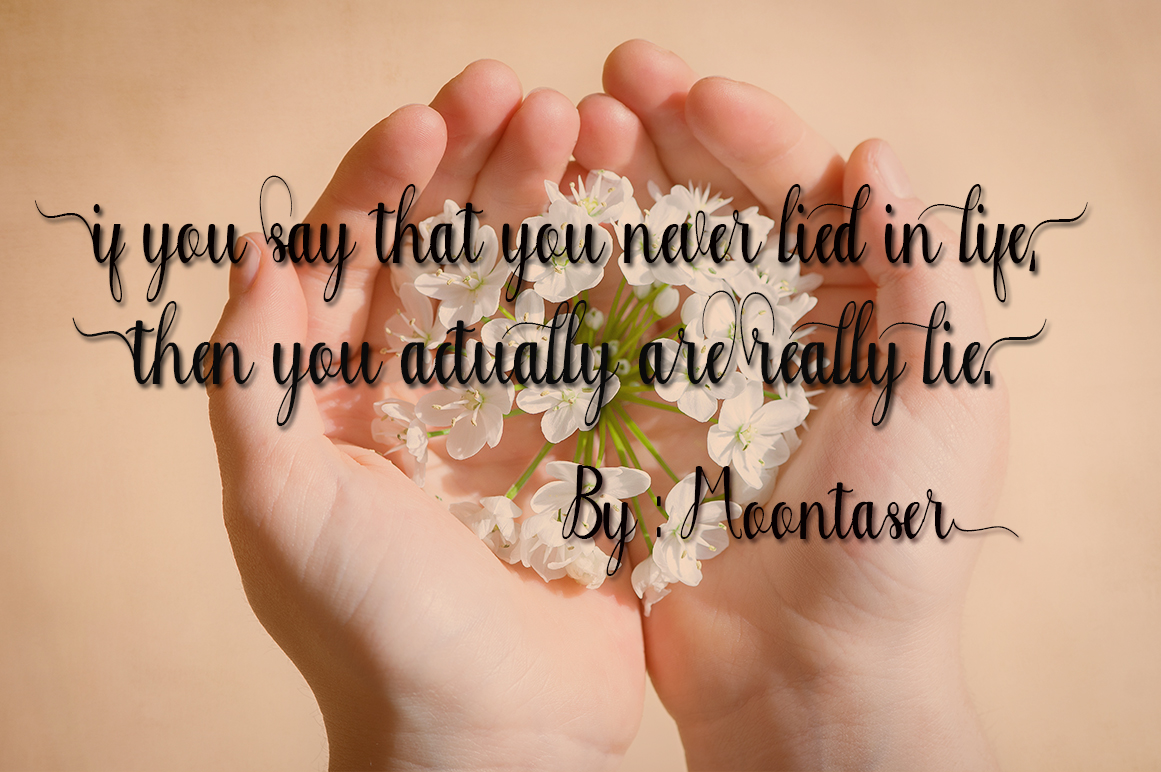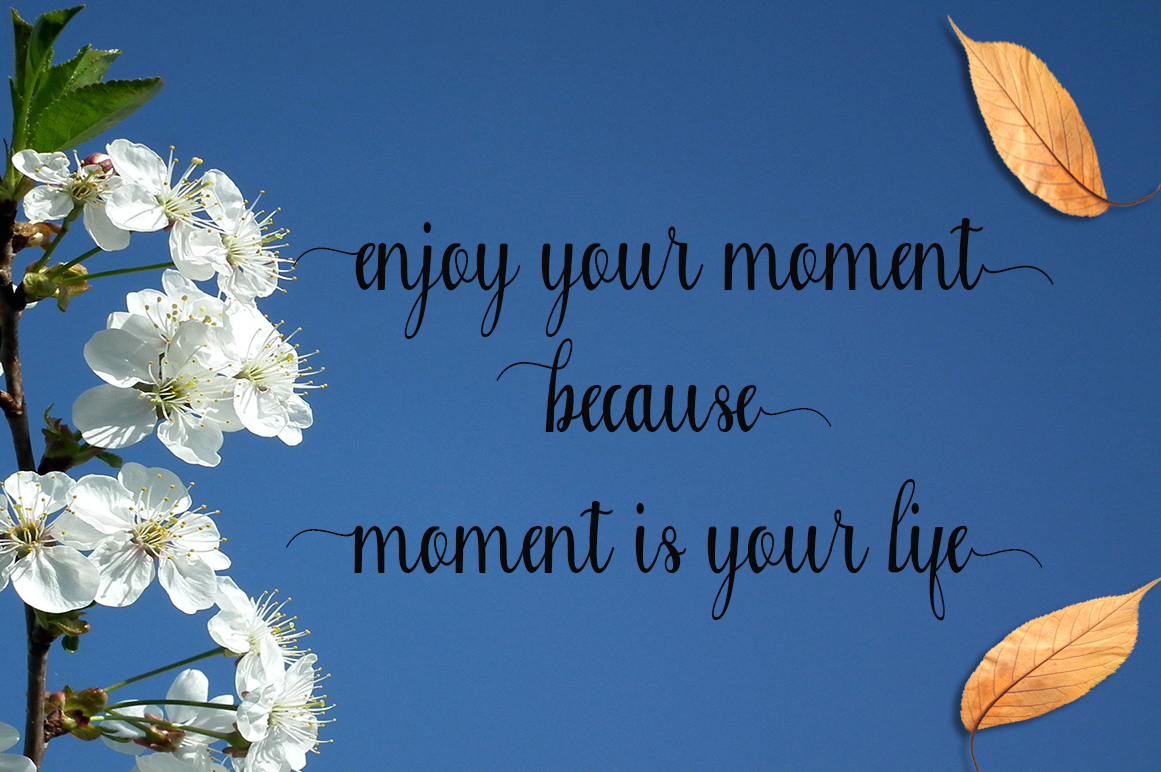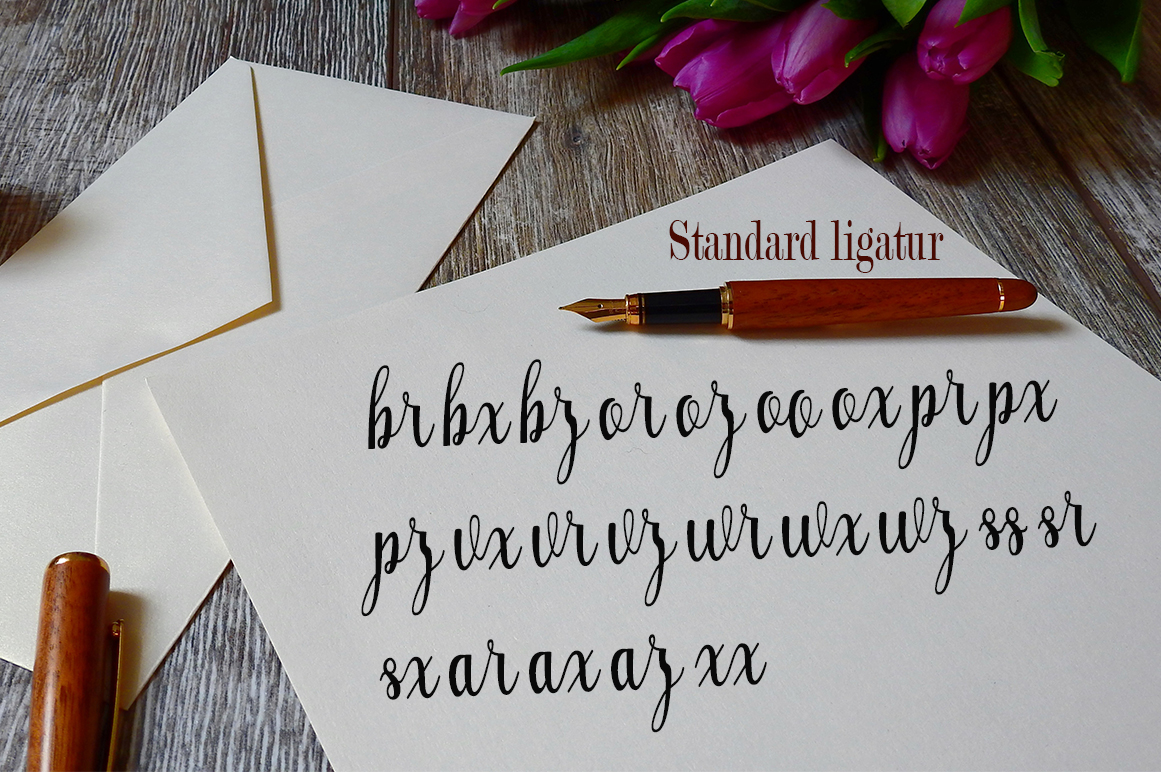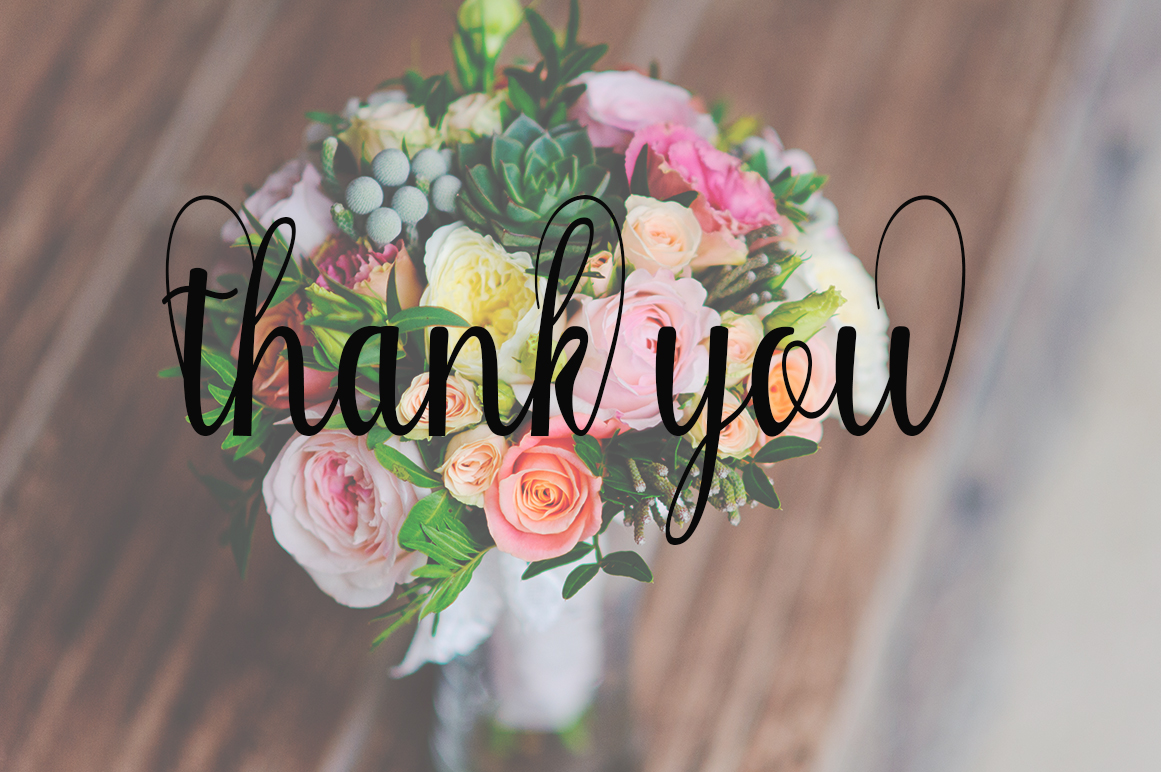
Kallina Font
About Kallina Font
Kallina is modern calligraphy at its finest. This font was designed by handwriting, and it has a modern and unique forms of calligraphy, making the writing style very natural.
Kallina is a script font deserving of being in your growing font collection.